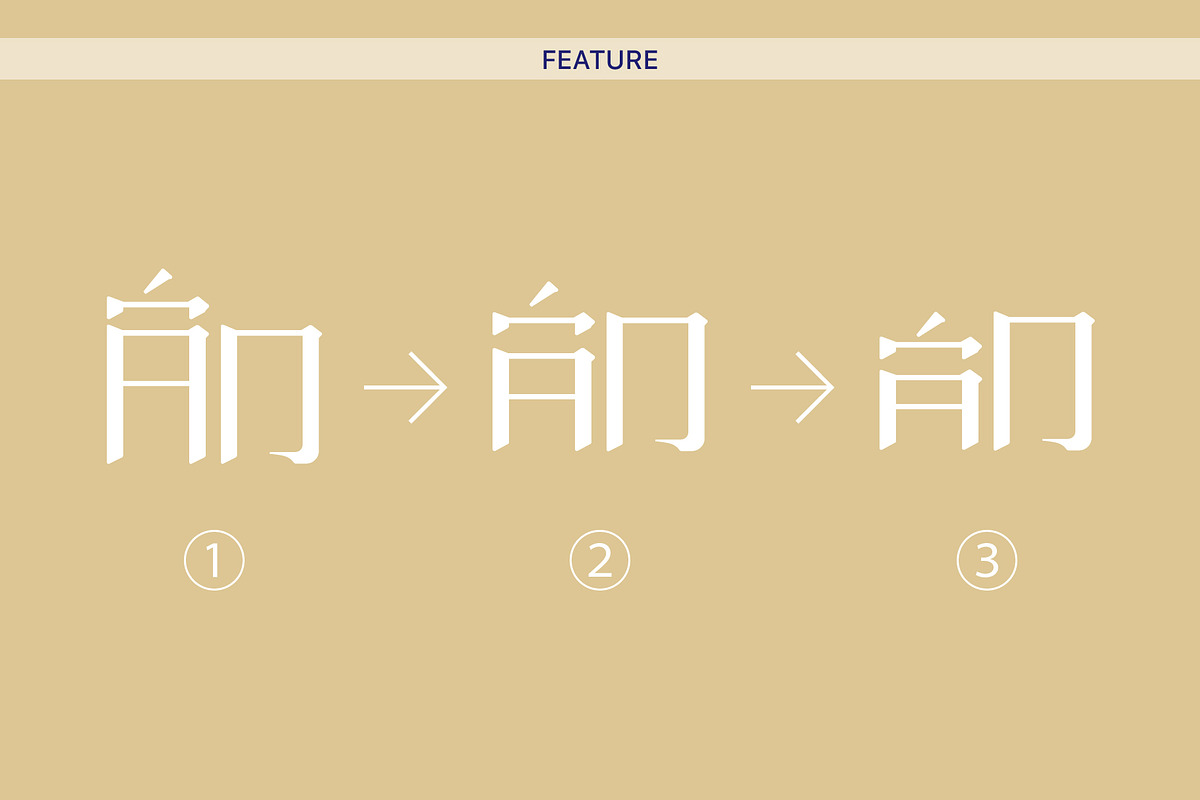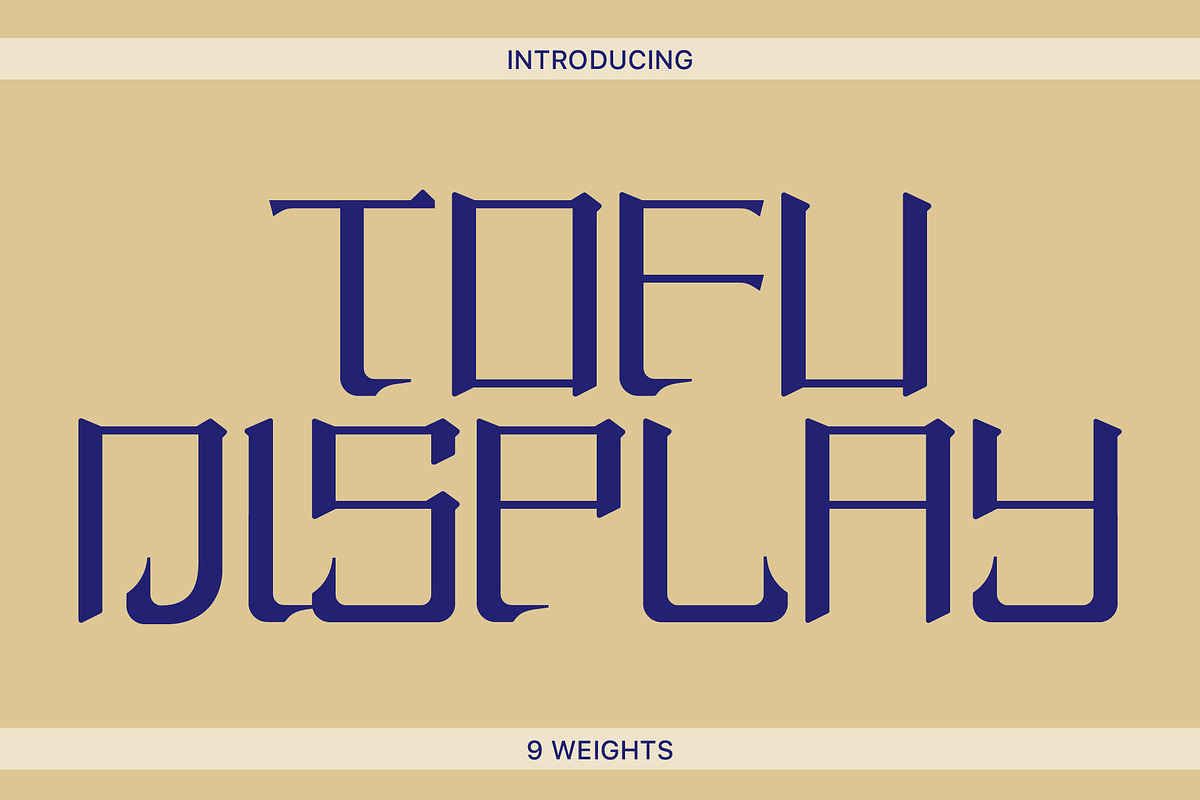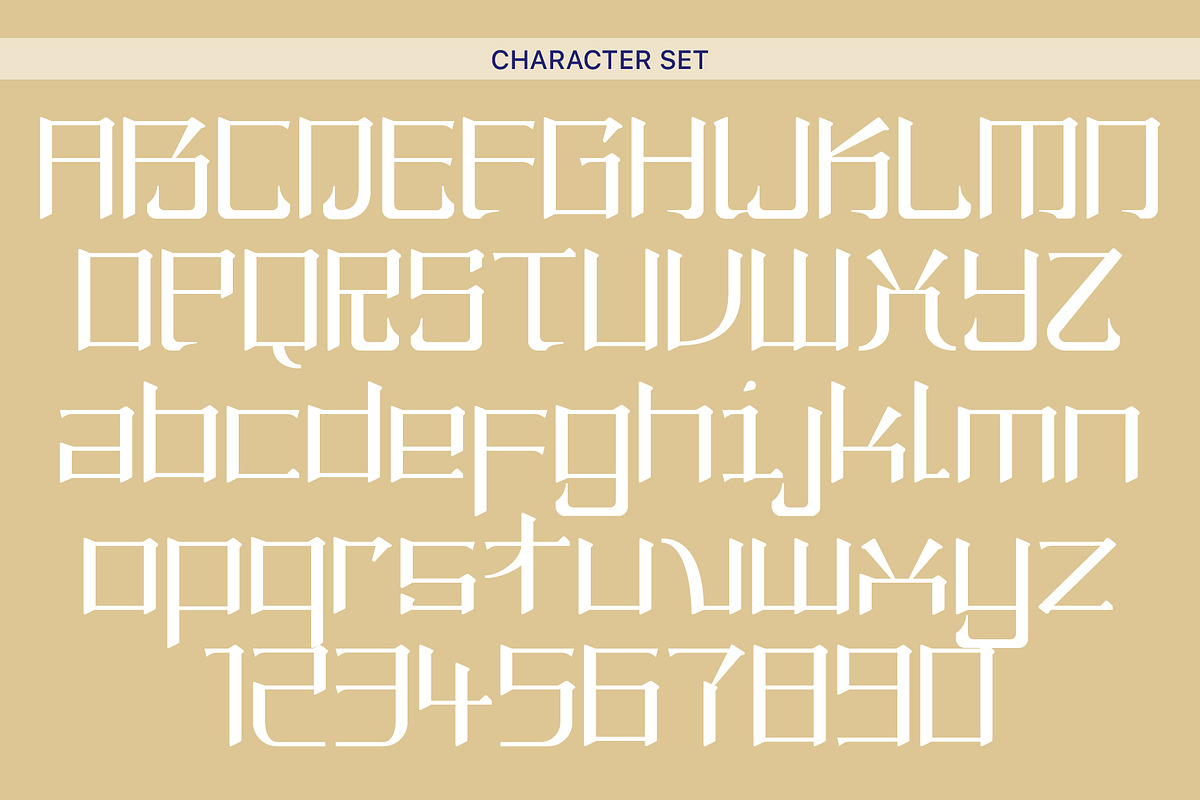
Tofu Display
Tofu Display is an upgrade from our very first typeface - House Of Nguyen. It took inspiration from East Asian culture, letters and the name came from one of the most famous dishes here.